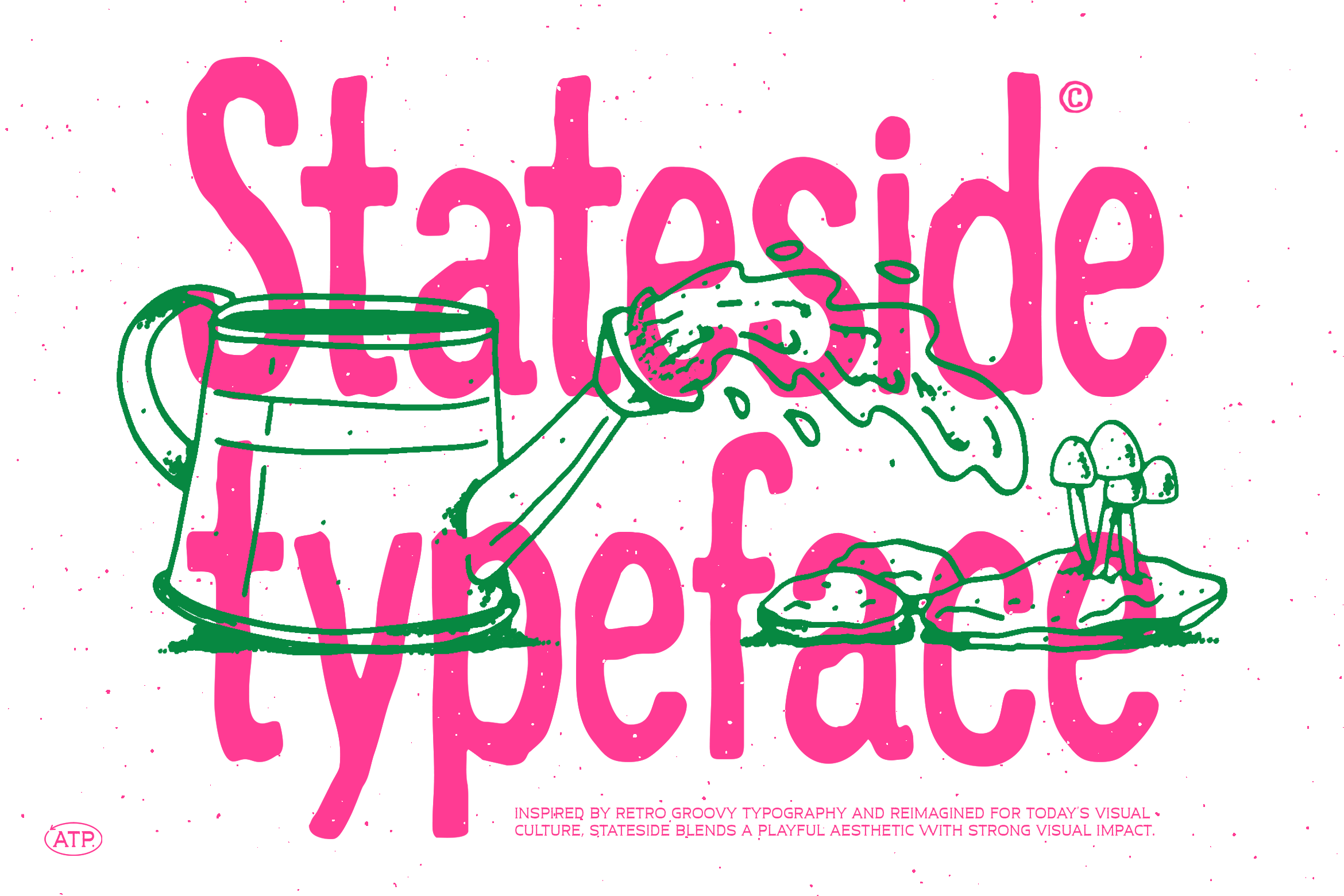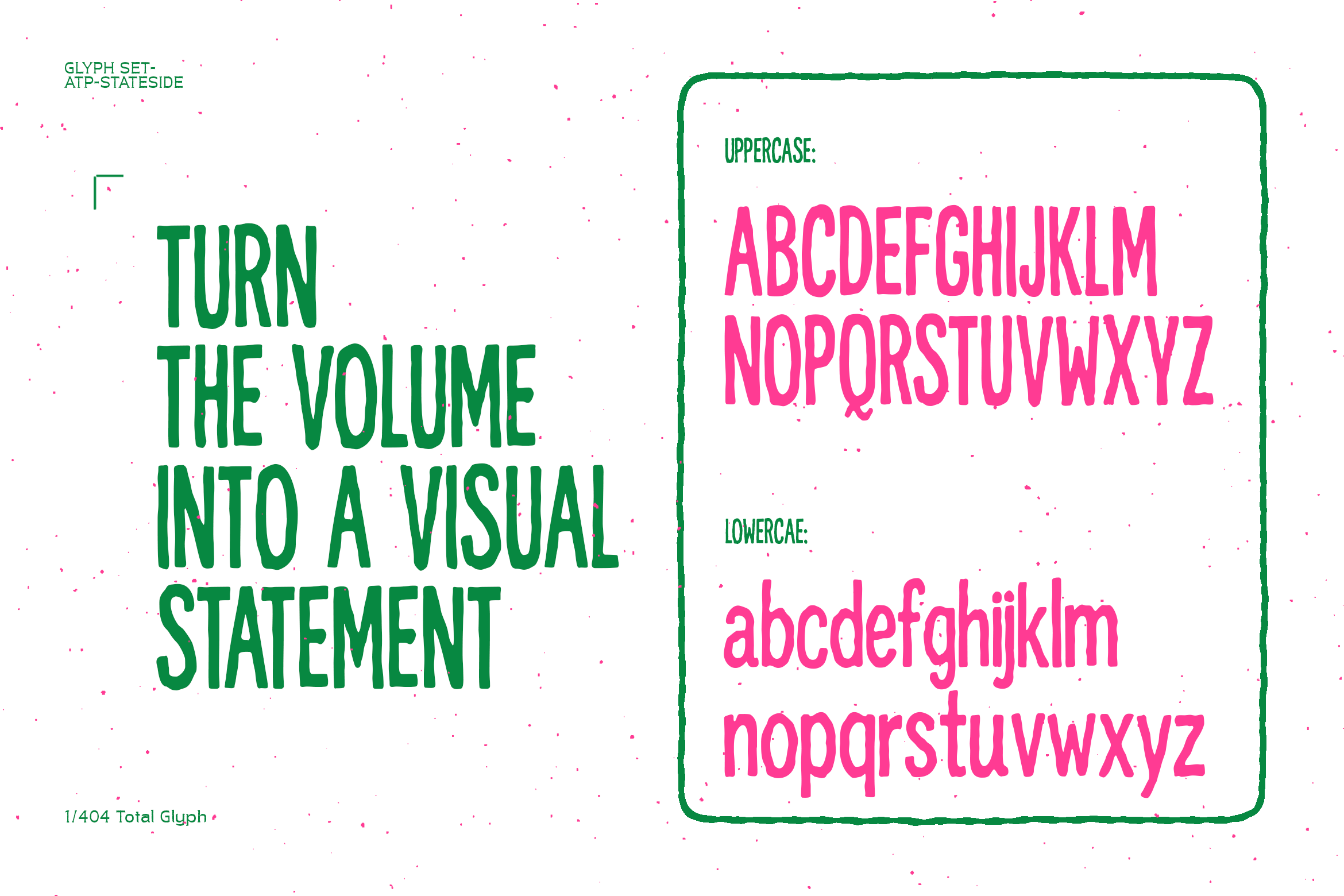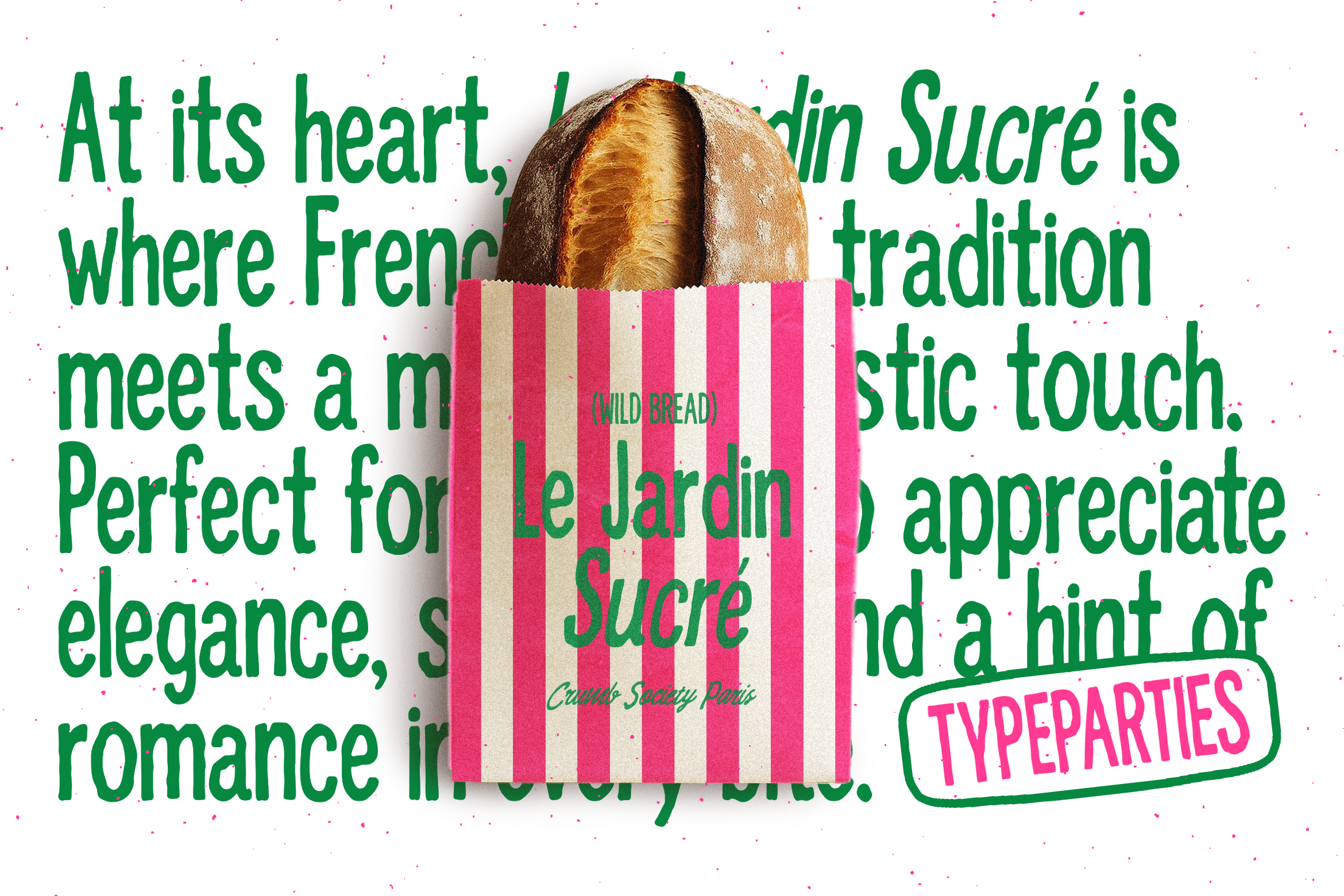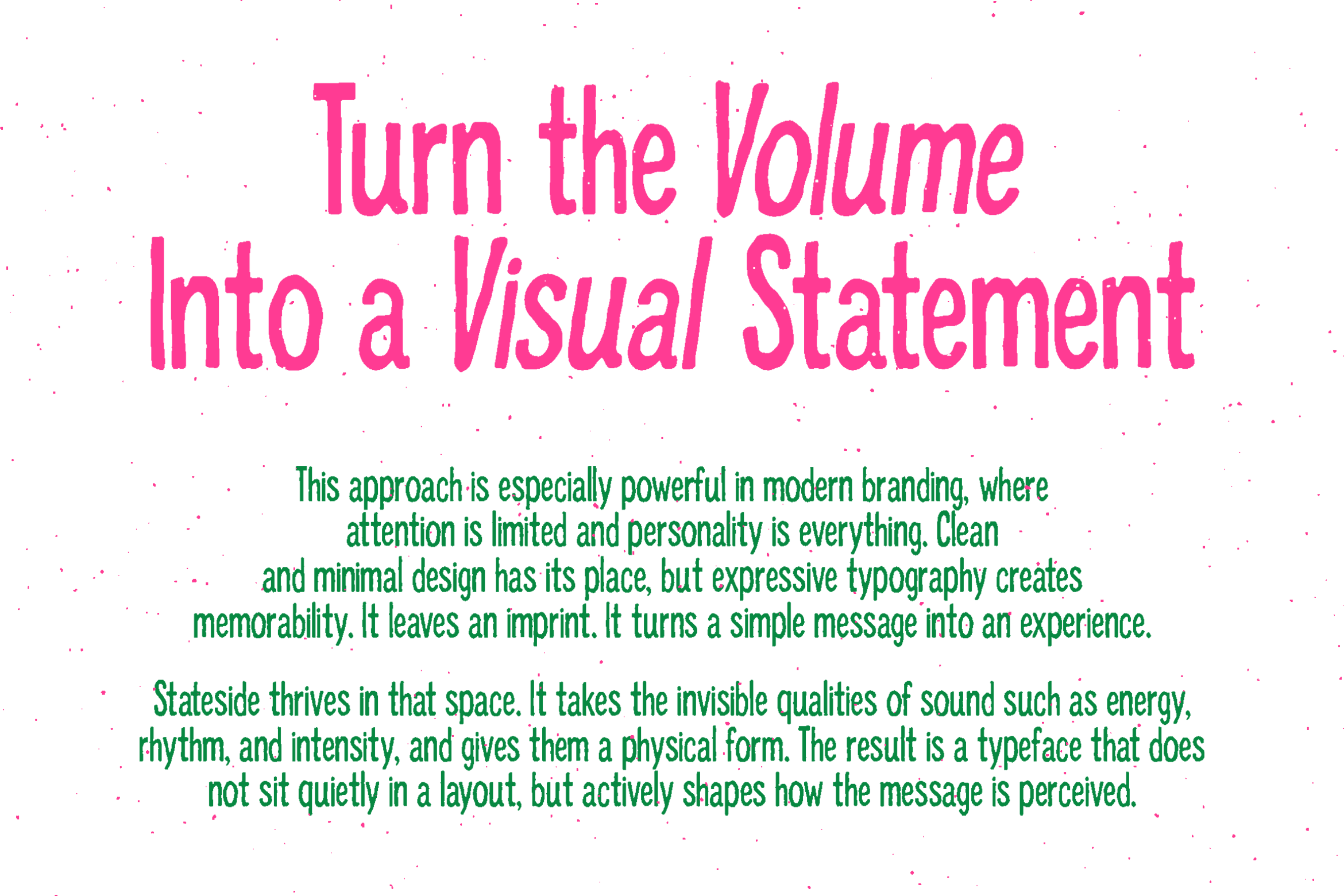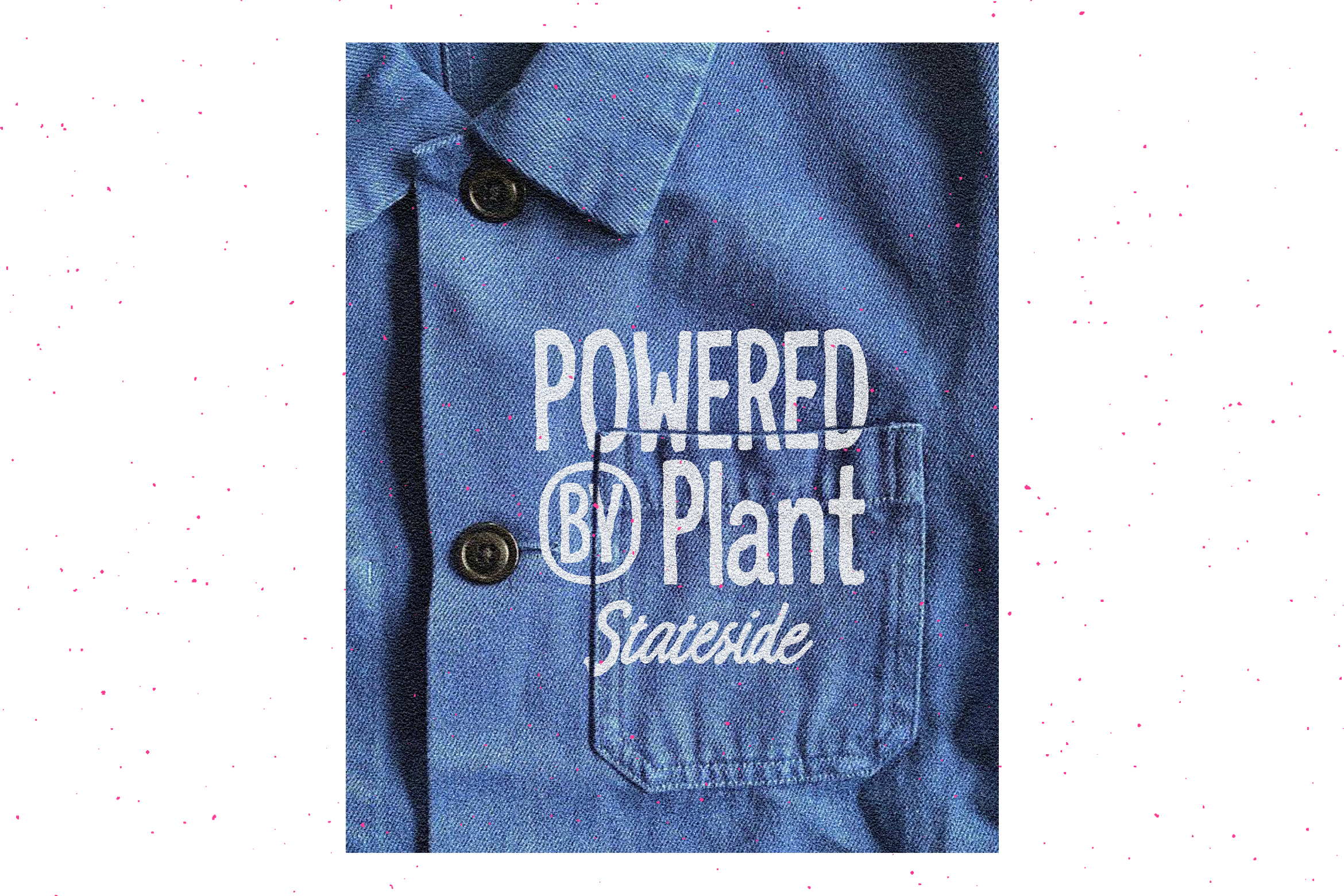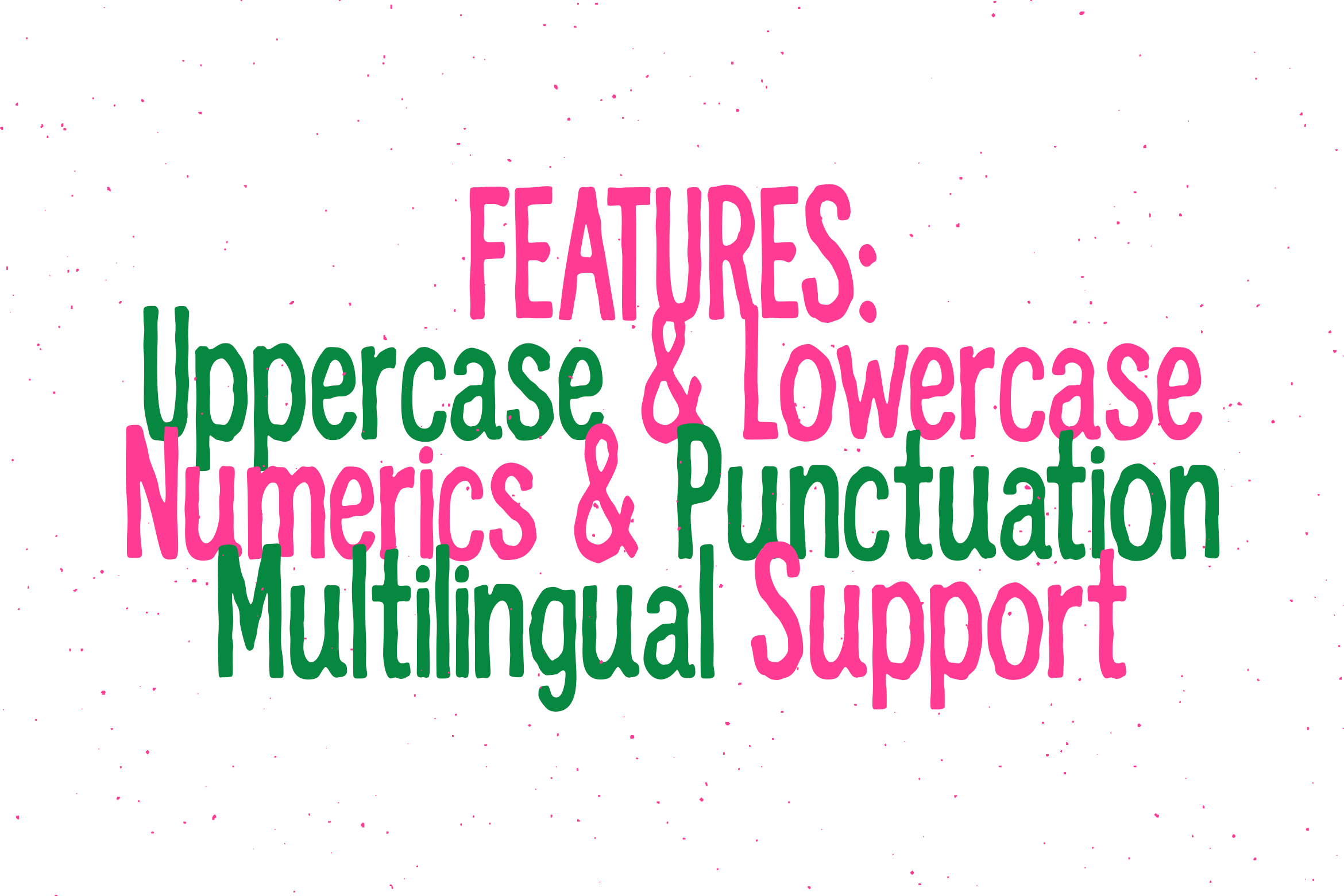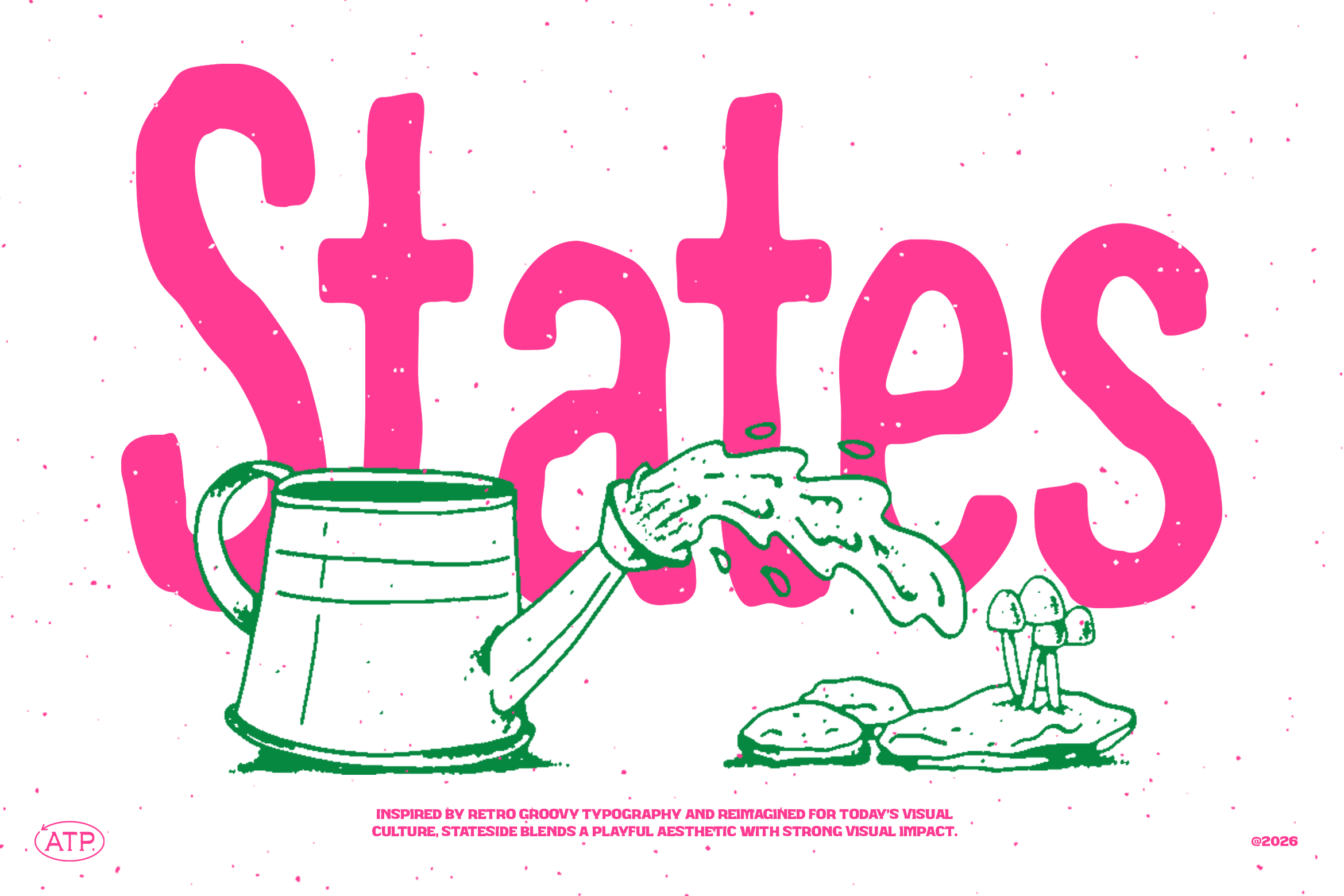
Stateside Font
Stateside
This is a hand-driven, high-impact display typeface that lives somewhere between naive lettering and controlled chaos. Every curve carries a human pulse. Every stroke..refuses to be perfectly geometric. It leans into imperfection on purpose, giving it that raw, almost stubborn personality that polished fonts usually try to hide. The forms are soft, rounded, and slightly swollen, but not in a cute or predictable way.
Stateside Font